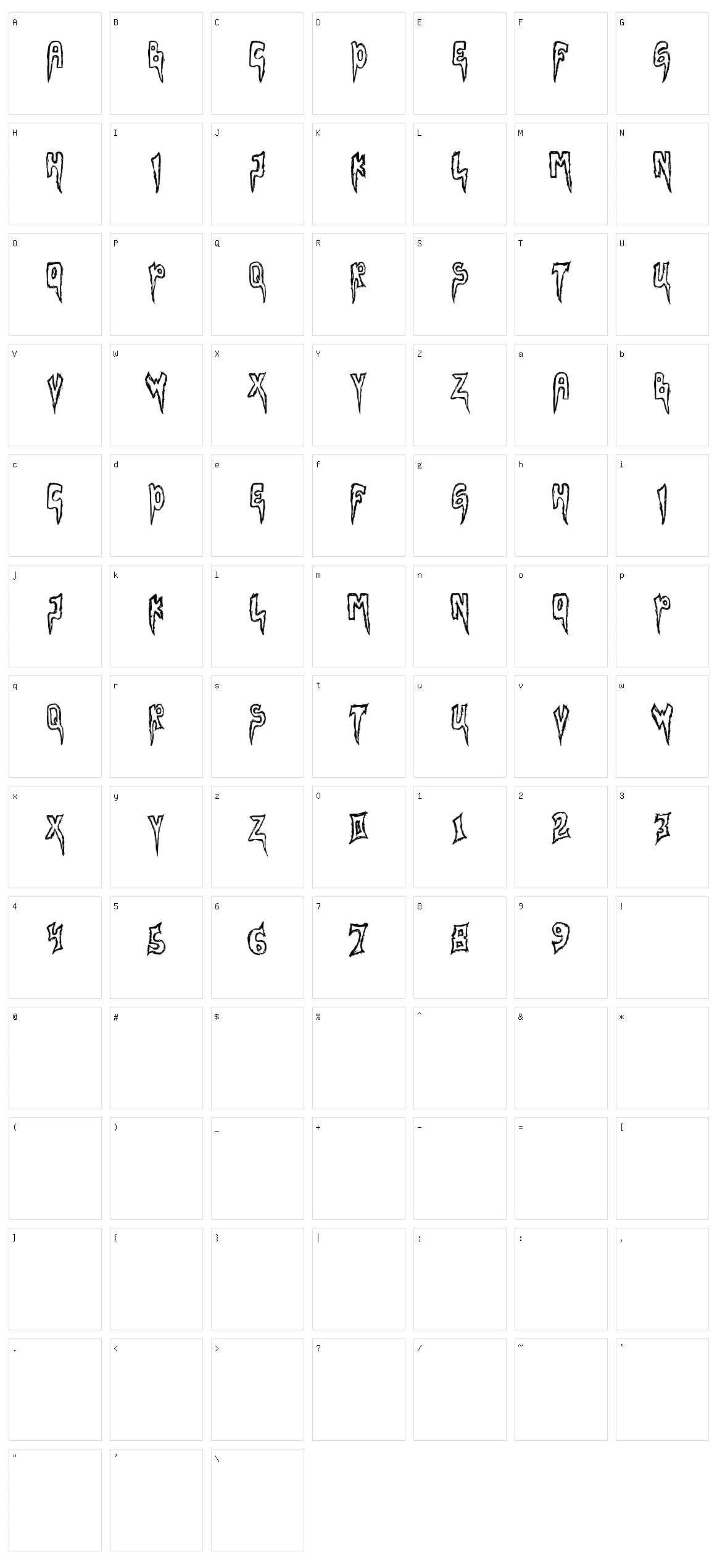
The free font Silent is carefully designed by Ditya Ananto, showcasing a thoughtful balance of creativity and usability and falls under the Horror font style. When you download the ZIP file, it contains only 97.5 KB of font files, making it lightweight and quick to download. Please review the license details below to understand permitted usage and distribution rights. If license information is not available, we recommend using this font for personal projects only or contacting the author directly for commercial usage permissions.